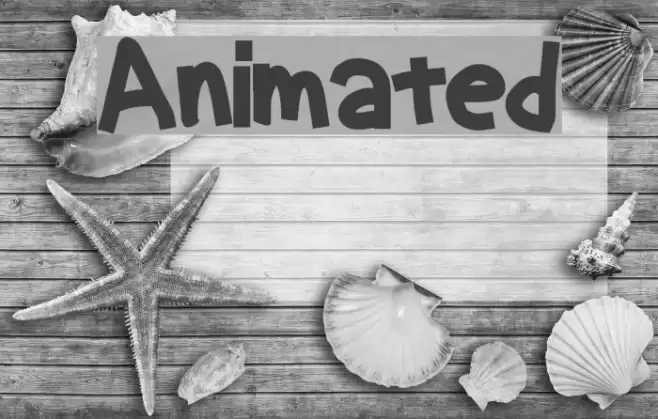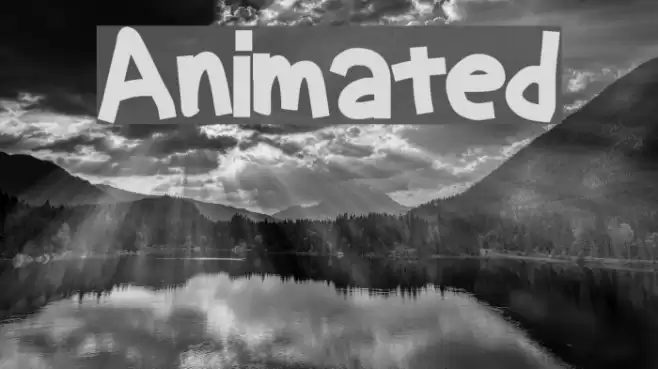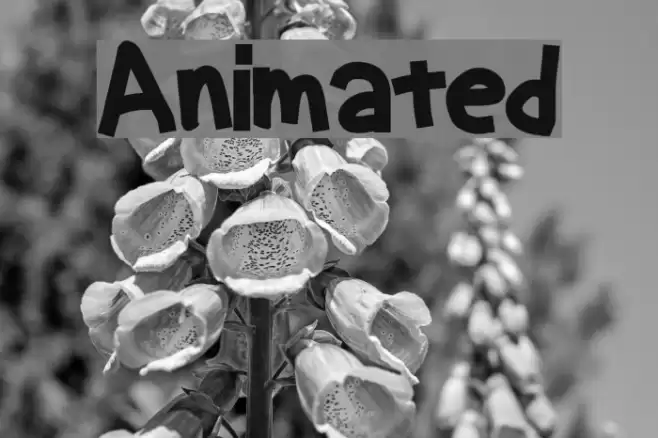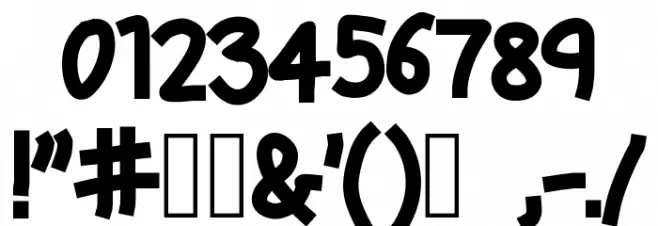
Animated Font
Animated Description
This playful and bold font features a hand-drawn, cartoonish style with thick, rounded strokes that give it a fun and informal appearance. The uppercase and lowercase letters maintain a consistent, whimsical design, making it ideal for projects that require a lively and engaging look. The numbers and special characters follow the same playful aesthetic, ensuring a cohesive appearance across all text elements. The font's exaggerated curves and slightly irregular shapes add to its charm, making it perfect for creative and lighthearted applications.
A playful, bold, hand-drawn font with a cartoonish style from Cartoon fonts.
- Proposed Projects: Ideal for children's books, comic strips, playful branding, and party invitations.